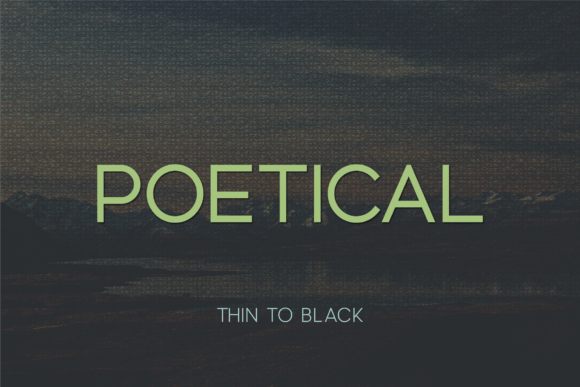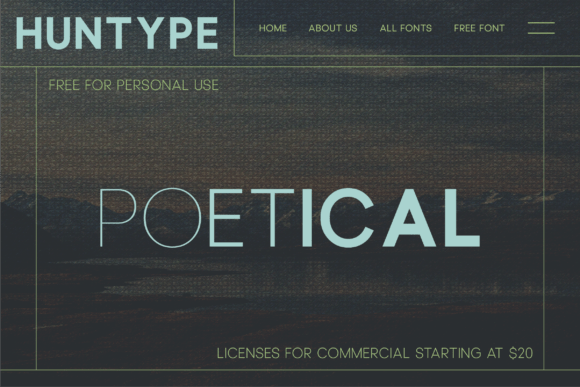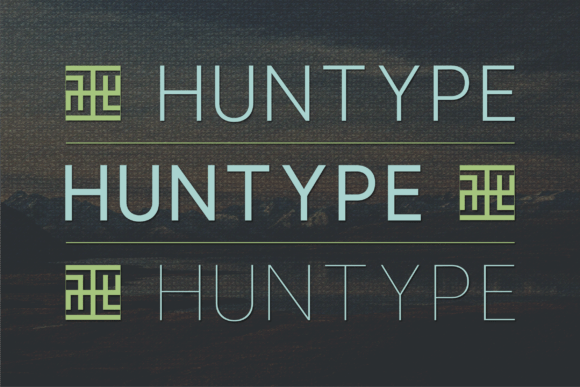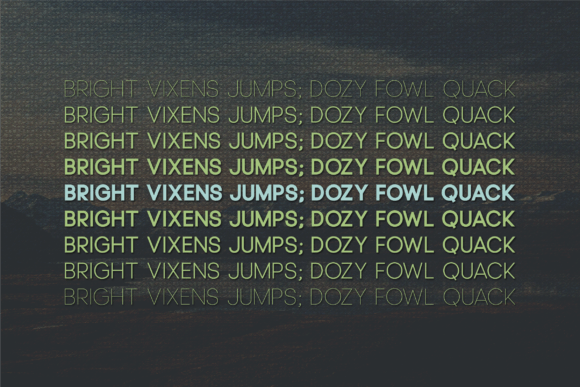
Poetical Font: Modern Minimalist Typography for Elegant Branding
About the Poetical Font
Elevate your designs with Poetical Font, a font that combines sophistication with readability. It is a modern and versatile font family, a blend of clean geometric forms and subtle sophistication. Its adaptable style is evident in the precise letterforms and contemporary aesthetic. A harmony of sharp lines and gentle curves. Each font in the family stands alone, impactful and refined in its own right.
It excels in branding, logos, headlines, and various design projects. The range of weights provides flexibility to explore a wide array of applications, lending a modern and professional feel to any endeavor. Its clean, geometric aesthetic makes it particularly suitable for projects requiring a contemporary and sophisticated look.
Poetical Font Usage Examples
Poetical Font Example